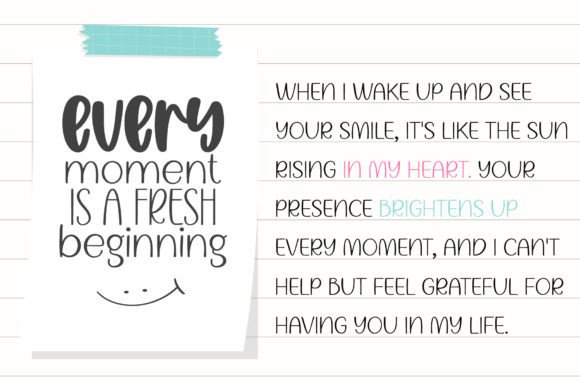
Display Memories Font
Display Memories is a sweet and cute handwritten trio font. Fall in love with its incredibly versatile style and use it to create gorgeous wedding invitations, beautiful stationary art, eye-catching social media posts, and much more!